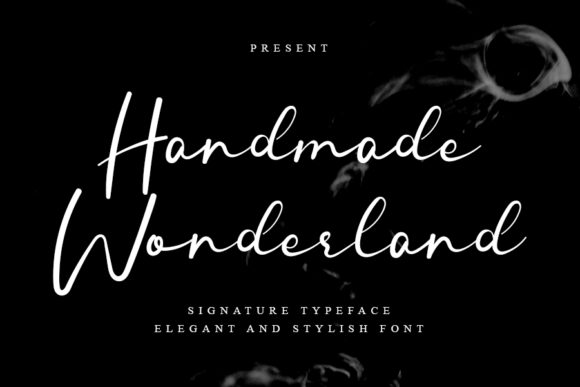
Journey into the realm of script fonts and discover Handmade Wonderland, a font crafted with elegance and charm. Its flowing lines and sweeping curves evoke the beauty of handwritten letters, adding a personal touch to your digital creations. Step into a world of enchantment, where words dance with grace and artistry.
With Handmade Wonderland, immerse yourself in a symphony of creativity. Its delicate strokes and graceful flourishes bring a touch of whimsy to your designs. Whether you're crafting wedding invitations that whisper romance or creating logos that exude sophistication, Handmade Wonderland is your trusted companion.
Let your imagination soar as you explore the endless possibilities of Handmade Wonderland. Its versatility knows no bounds, lending itself effortlessly to a myriad of projects. From heartwarming greeting cards to eye-catching business cards, Handmade Wonderland transforms ordinary words into works of art.
As you embark on your creative journey, embrace the magic of Handmade Wonderland. Allow its enchanting characters to captivate your audience, leaving them spellbound by your designs. Experience the joy of creating something truly special, something that speaks to the heart and leaves a lasting impression.